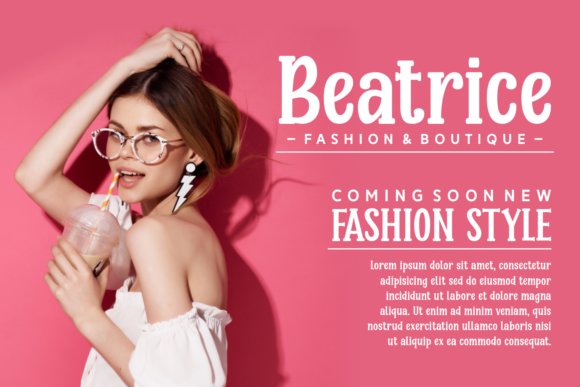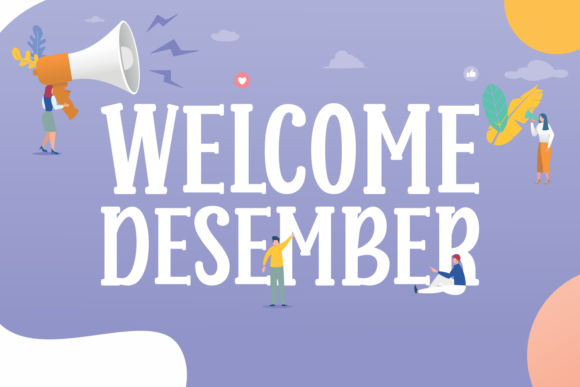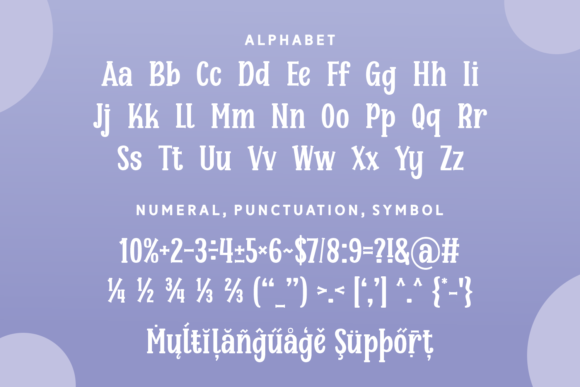
Introduction to Alisha Cherish Font
Alisha Cherish is a friendly serif font featuring bold display characters.
You will certainly cherish having this font in your library for your next craft, print, or digital design It is compatible with cutting machines such as Cricut and Silhouette.
Alisha Cherish Font offers exceptional quality and versatility, making it a valuable addition to your design toolkit. Whether you’re creating for personal projects or commercial use, Alisha Cherish Font delivers professional results.